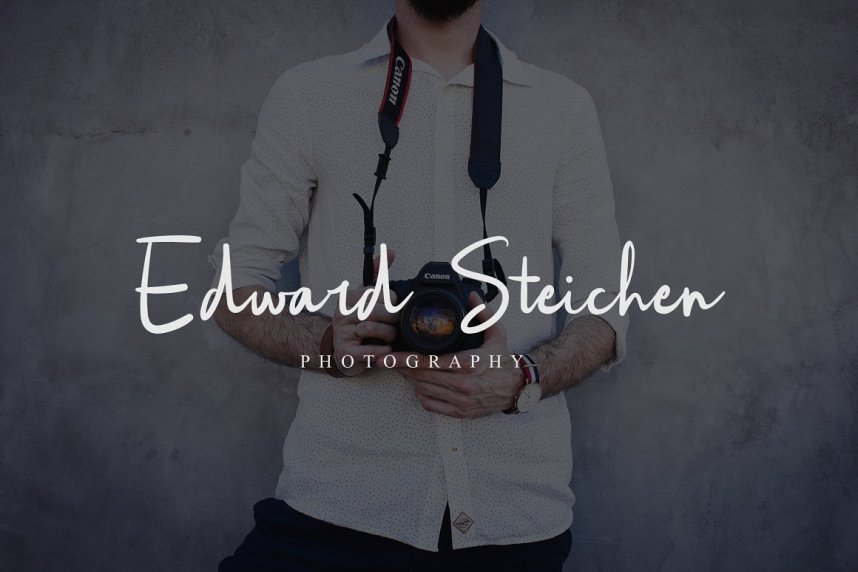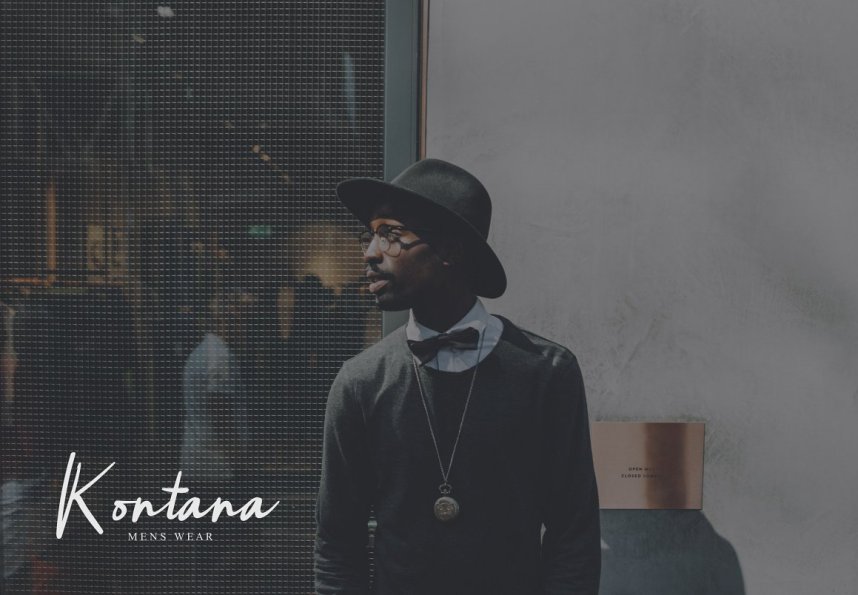
Rotterdam Script Font
Introducing Rotterdam! It is designed and shared by Graphicfresh. This font look beautiful and elegant. The bends look gorgeous, especially if these fonts are used in your design project. it’s perfect for logos, name card, magazine layouts, invitations, headers, or even large-scale artwork.